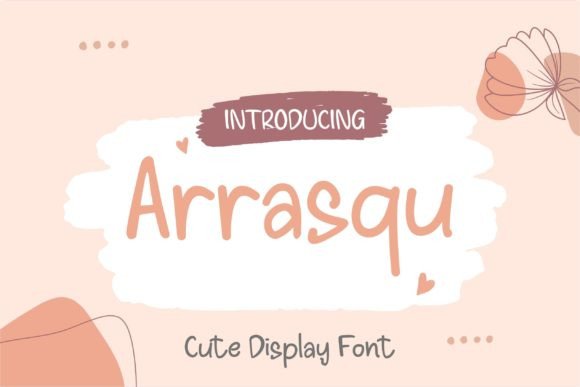
How Arrasqu Transformed My Brand’s Visual Identity
I run a small boutique bakery called "Sweet Hearth," and I've always believed that the smallest details can make the biggest difference. One day, while preparing a new batch of custom-designed cookie boxes for a holiday order, I realized my packaging looked a bit outdated. The font I was using felt too generic, and it didn’t reflect the warm, personal vibe of my business. That's when I discovered Arrasqu.
Arrasqu is a cute and friendly handwritten font with a soft, approachable feel. It has a gentle curve to each letter, giving it a hand-drawn charm that feels inviting and authentic. I immediately saw how it could bring personality to my brand without being over the top or hard to read.
Bringing Personality to My Bakery Packaging
I decided to use Arrasqu on my cookie box labels. Instead of the standard sans serif typeface I had been using, I switched to this handwritten script. The result? A fresh, cohesive look that matched the cozy atmosphere of my bakery. Customers started noticing the change and commenting on how much more welcoming the packaging felt.
Not only did it elevate the design, but it also helped me stand out in a competitive market. With Arrasqu, I could now create consistent branding across all my materials — from my website banners to my social media posts.
More Than Just Packaging: Expanding Its Use
As I became more comfortable with Arrasqu, I began using it in other areas of my business. I redesigned my thank-you cards, which I send to customers who place special orders. The handwritten feel of the font made those cards feel more personal and thoughtful. I even used it on my café menu board, where it added a touch of warmth to the list of daily specials.
What I love most about Arrasqu is that it's versatile enough to work well in different contexts. It’s perfect for headlines, short phrases, and decorative accents. Whether I’m creating a label for a new product or designing a promotional flyer, Arrasqu gives my visuals that extra layer of character.
It’s not just about looking good — it’s also about readability. I made sure to use it in ways that were still easy to read, especially on smaller labels and mobile screens. When paired with a clean sans serif font, like Helvetica or Arial, it creates a nice balance between playful and professional.
Why Typography Matters for Small Businesses
I used to think that typography wasn’t something I needed to worry about as a small business owner. But now I realize how much it impacts first impressions. Your brand’s visual identity starts with the fonts you choose. Arrasqu helped me build a stronger, more recognizable brand by adding a unique touch to every piece of content I created.
Typography affects everything from customer engagement to brand perception. When your text looks consistent and polished, it shows that you care about the details. And that makes your business more trustworthy and memorable.
For example, I noticed that my Instagram posts with Arrasqu received more likes and comments than before. People loved the way the font brought my brand’s personality to life. It wasn’t just about aesthetics — it was about connection.
Choosing the Right Font for Your Brand
These details matter if you plan to use the font on products, packaging, merchandise, or digital downloads. For me, knowing that Arrasqu was a premium font with clear commercial rights made it easier to integrate into my brand’s visual strategy.
I also found that pairing Arrasqu with a complementary font helped create a more balanced design. For instance, using it alongside a modern sans serif font for body text kept things legible while still maintaining that handwritten charm.
Whether you’re updating your website, redesigning your packaging, or creating new social media graphics, Arrasqu can be a great choice. It brings warmth, consistency, and a sense of authenticity to any project.
Since switching to Arrasqu, I’ve seen a noticeable improvement in how my brand is perceived. It’s not just about looking good — it’s about feeling good. And that’s exactly what I wanted for my bakery.